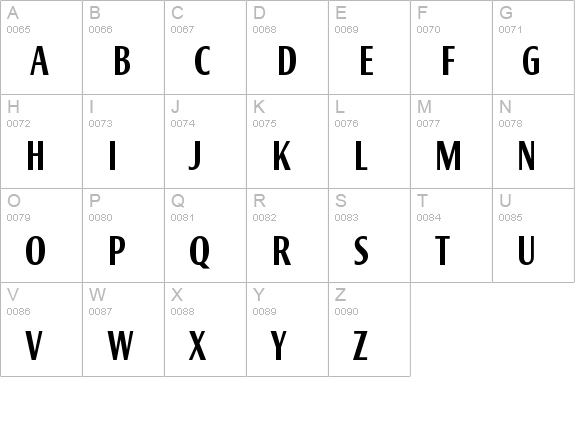
BureauRoxyMedium Font Details
BureauRoxyMedium is a sleek and modern font that effortlessly combines sophistication with a touch of playfulness. Its clean lines and balanced proportions make it perfect for a wide range of design projects, from branding to editorial layouts. The versatility of BureauRoxyMedium makes it a go-to choice for designers seeking a font that can easily adapt to various styles and aesthetics. One of the best features of BureauRoxyMedium is that it is available for free download at FontsMarket.com. This means that you can add this stylish font to your collection without any cost, allowing you to explore its creative possibilities without limitations. Whether you're working on a personal project or a professional assignment, BureauRoxyMedium is sure to elevate your designs with its contemporary charm and effortless elegance. Download it today and unleash your creativity with this exceptional typeface.